Iwata Universal Design Gothic Variable
"Iwata Universal Design Gothic" was developed so that people who cannot accurately read necessary information due to age-related vision loss or cataracts can grasp information as accurately as possible. Since its release in 2006, it has been used in all aspects of life as printed matter and display characters on electronic devices, but we have made it a variable font to realize easier viewing according to the content.
Based on "Iwata Universal Design Gothic display", 7 weights (L, R, RA, M, B, E, H) are combined into one font file, without compromising the original design of the font. You can seamlessly change Weight of the letters between "L" and "H".
What is variable font?
A font that allows you to freely change Weight, width, height, slant, etc. of characters in a single font file.
In "Iwata Universal Design Gothic Variable", Weight (weight) of characters can be adjusted as the first step.
Iwata Fuku Marugo Family
"Iwata Fuku Marugo" is an old Styles round Gothic typeface inspired by organic curves such as lead type handwriting, hand-carving, and ink bleeding.
Iwata's popular typefaces, which are used for SNS telops, movies, picture book titles, etc. from their cute silhouettes, are "Asob", "Unel", "Kataru", "Tatazm", and "Kizam". Added to Iwata LETS.
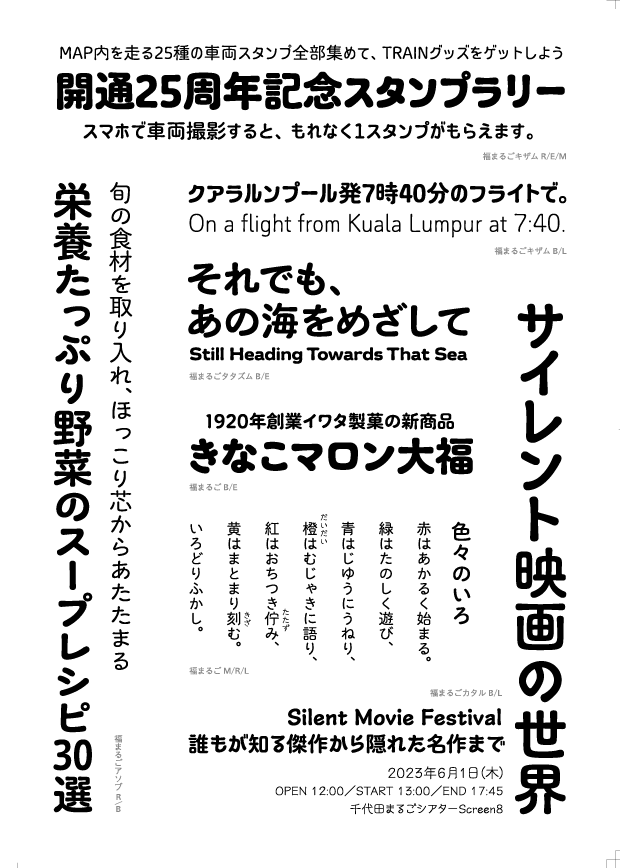
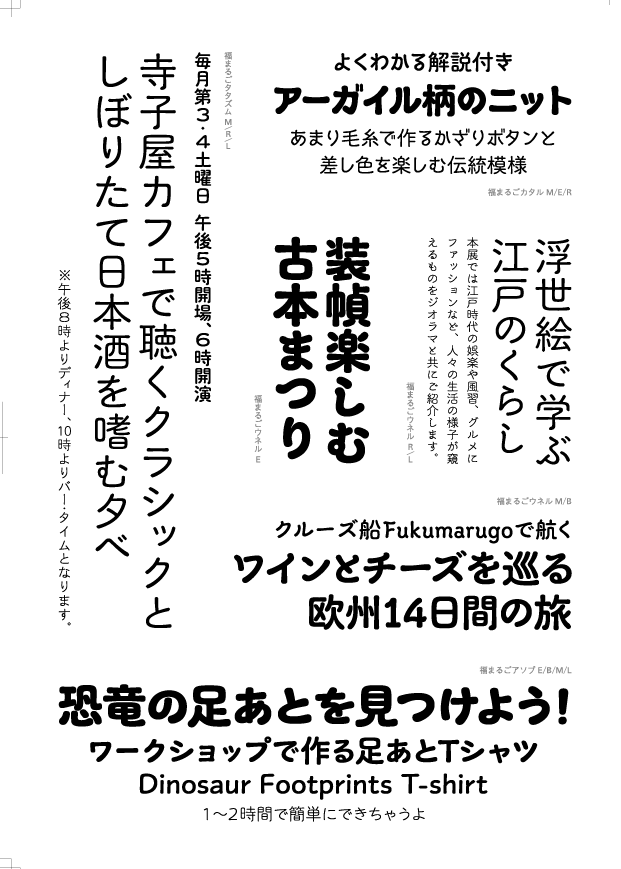
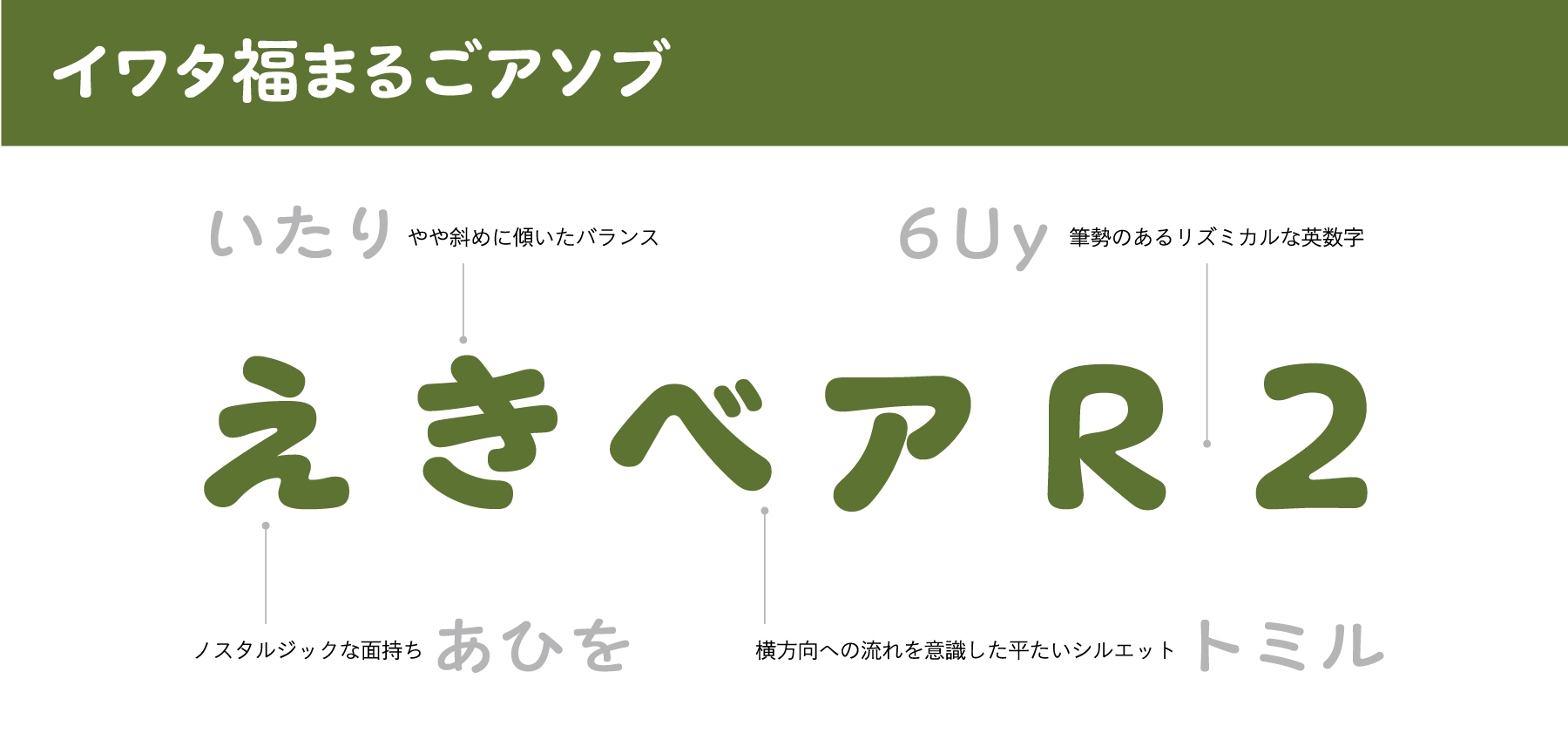
A typeface that has a light rhythm in a casual style, and has a nostalgic look with a friendly playfulness.
Its appearance is reminiscent of the boyhood when he enjoyed playing in the field.
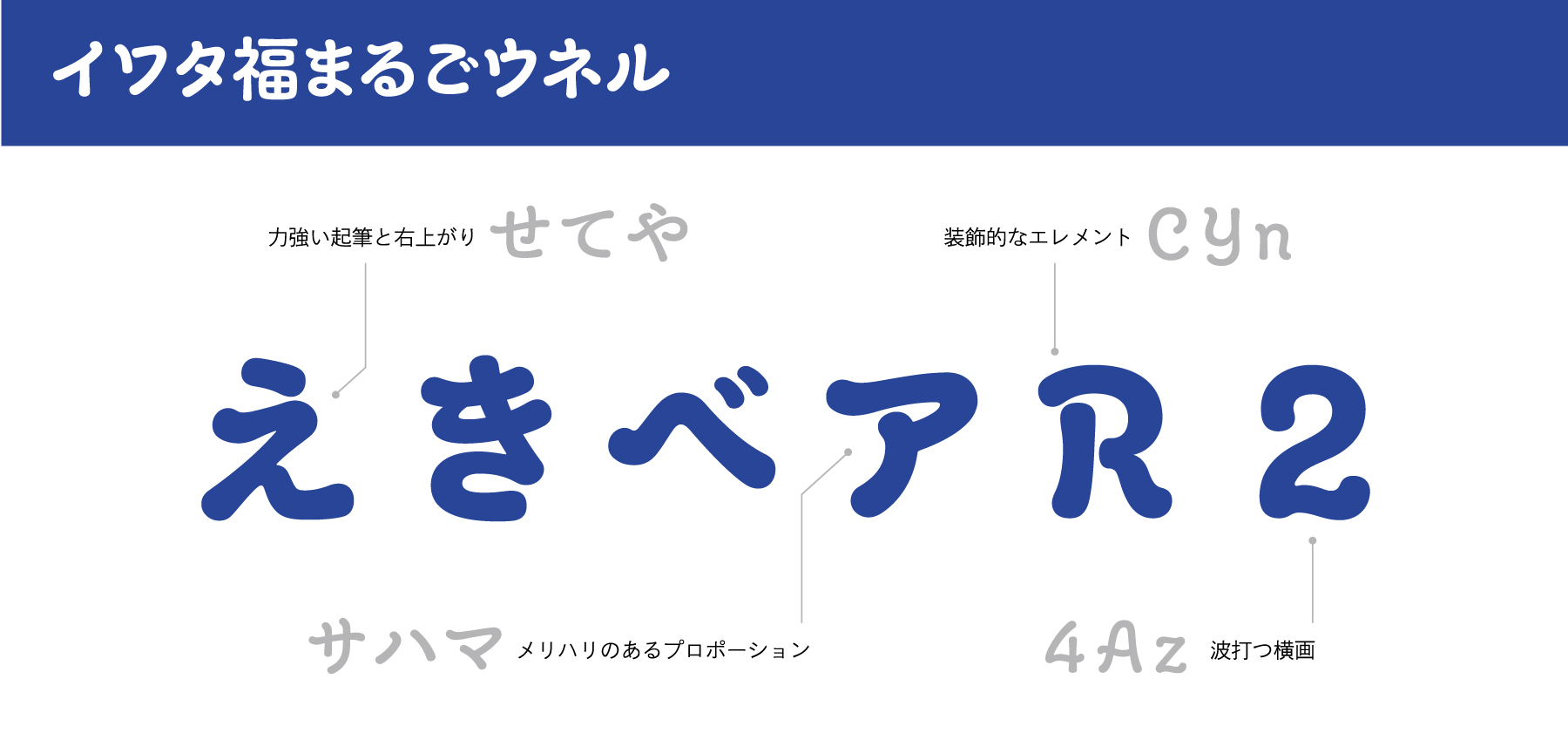
It is a gorgeous typeface that rises to the right. The design was inspired by the art nouveau, which uses many decorative curved lines, and it is said that the style is also influenced by ukiyo-e.
The undulating brushwork reminds me of Hokusai's great waves.
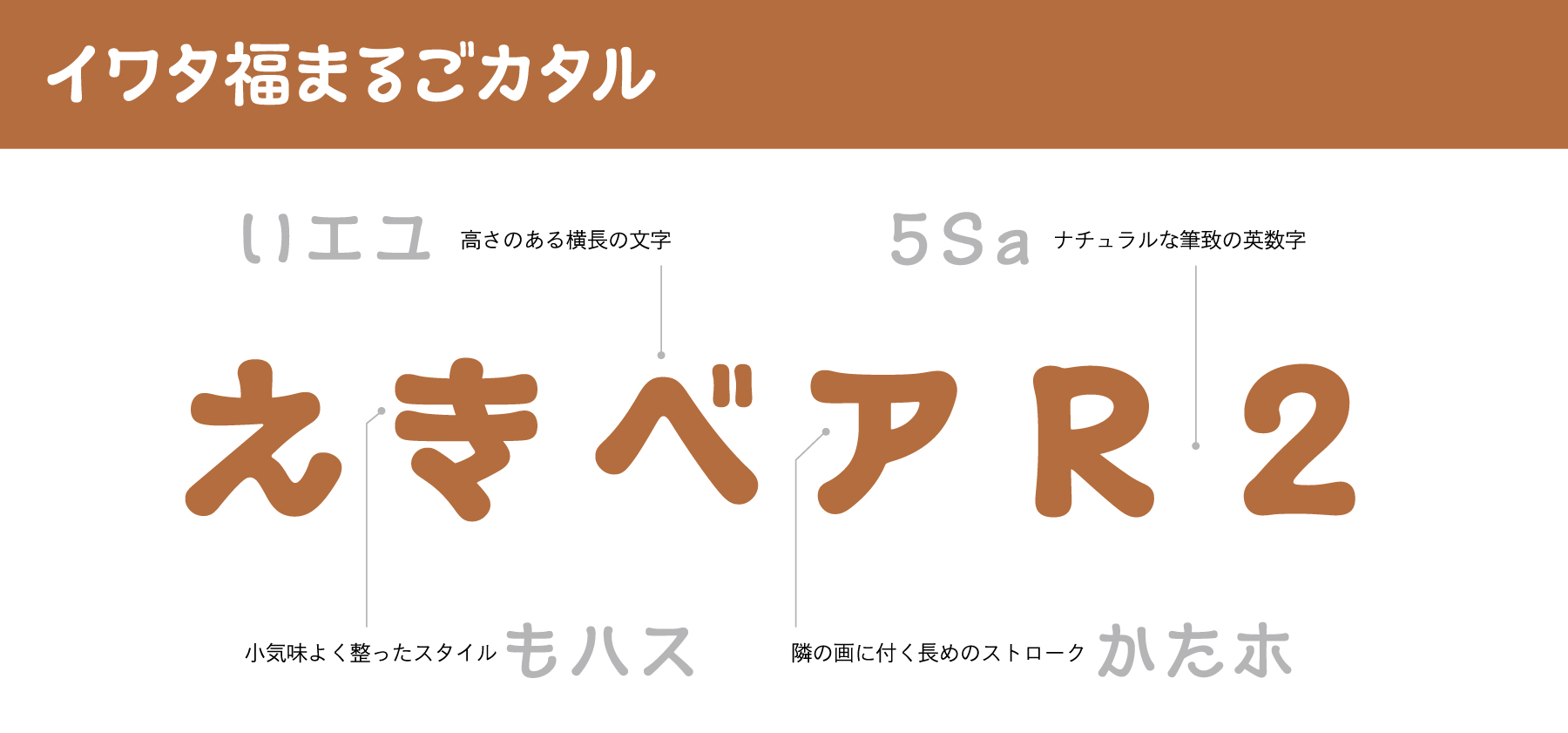
A typeface with a motif of characteristic characters used in movie subtitles. The skeleton with long line drawings and little height difference and the intonation of the line ends convey the image of handwriting.
It's as if the masterpiece projected on the retro projector speaks gently and slowly.
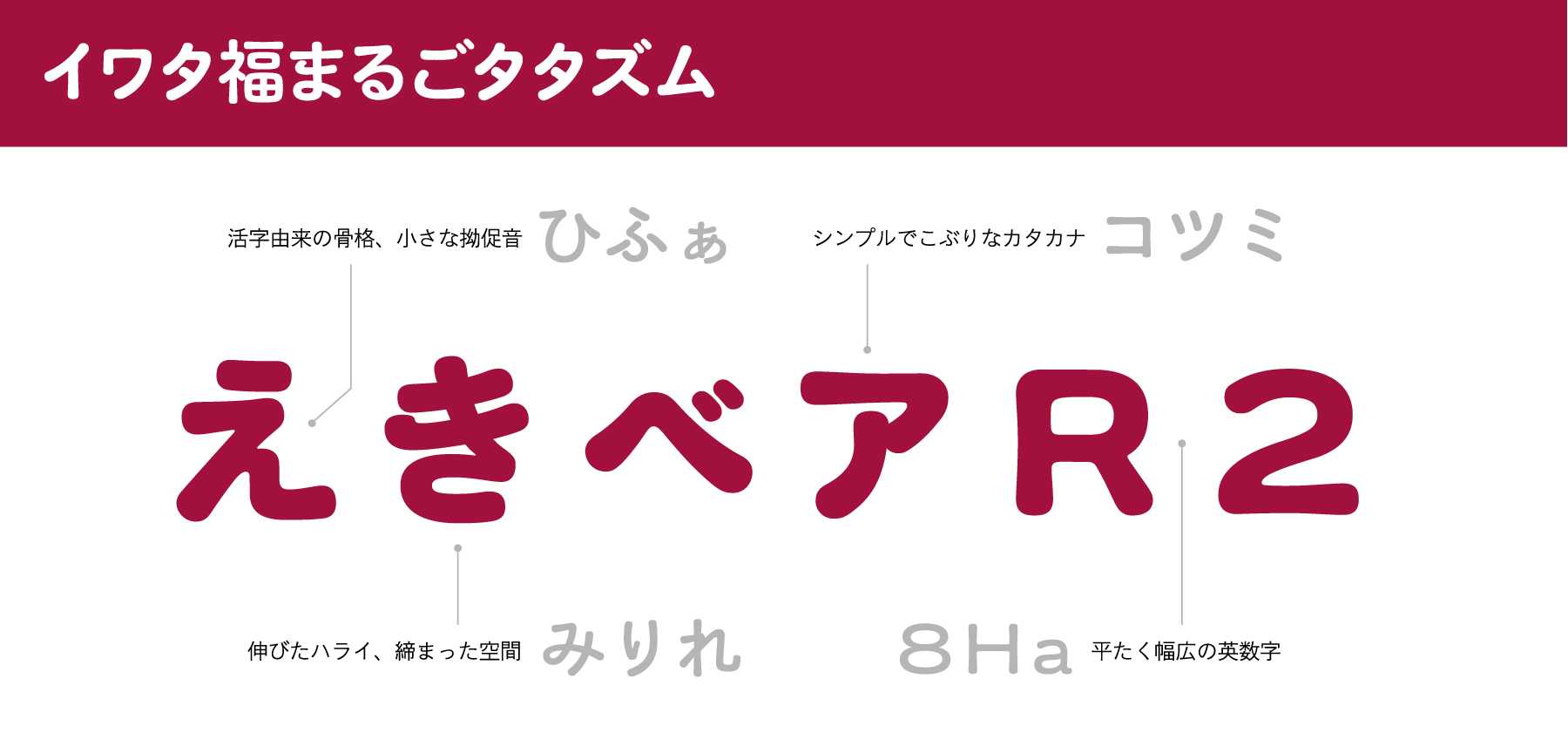
It is a typeface that combines the skeleton of the old Gothic type with metal type and a wide range of European characters. It strongly incorporates the taste cultivated in the printing age, such as tasteful imbalance and small contractions.
The dignified appearance that does not fade over time is reminiscent of Mt. Fuji dyed in the setting sun.
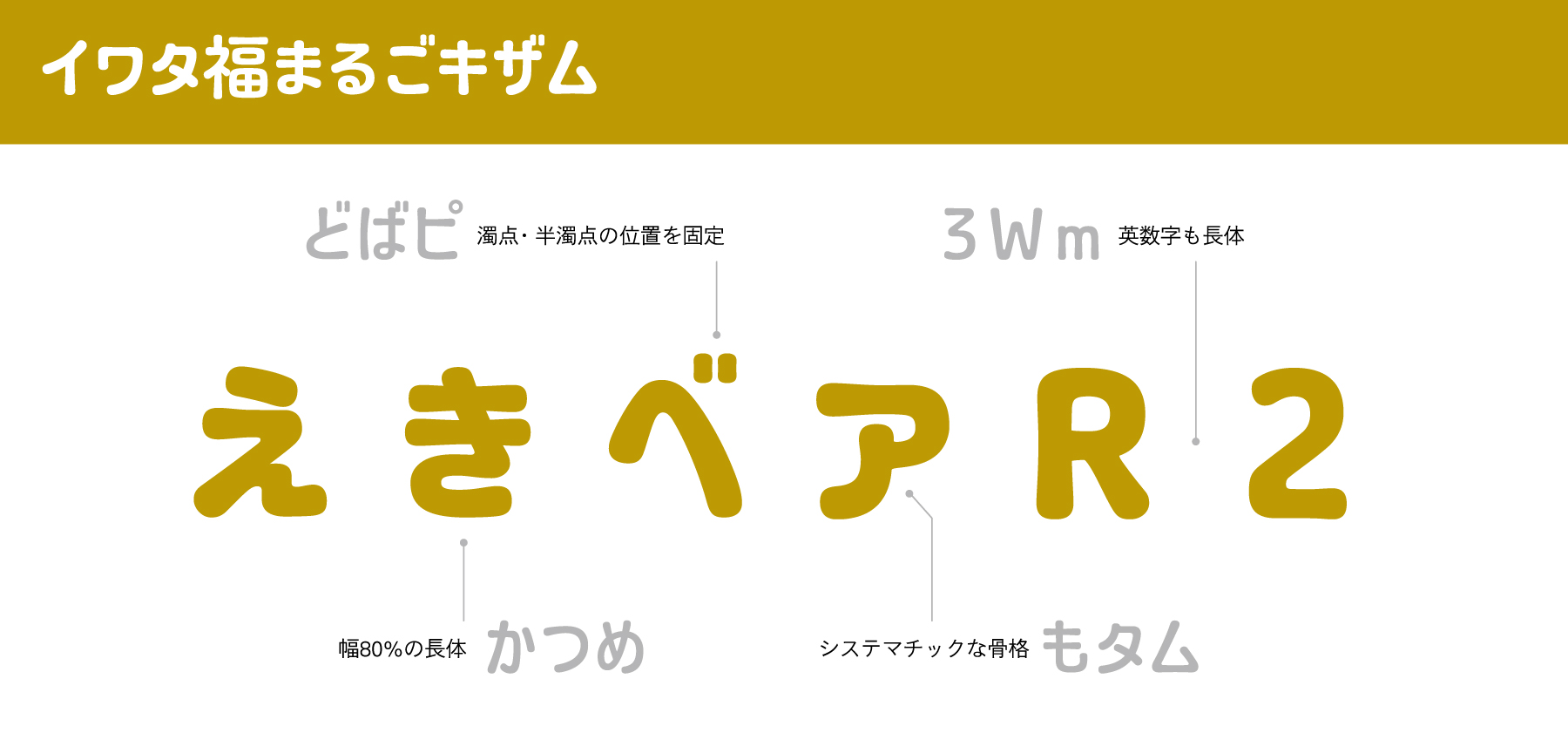
It is a typeface that looks like machine engraving, with horizontal and vertical kana characters aligned along horizontal lines.
The soft curves are combined with the regularity of a typewriter, creating an orderly yet informal impression.
*Kizam is a typeface exclusively for horizontal writing.